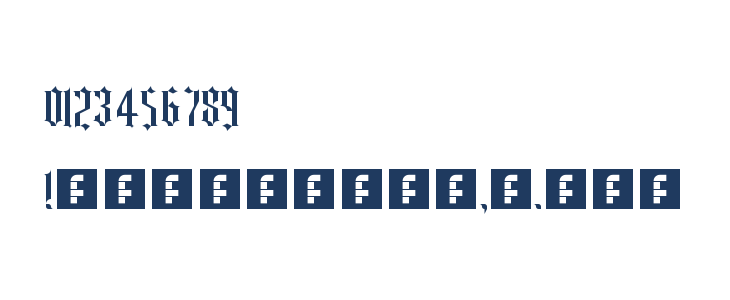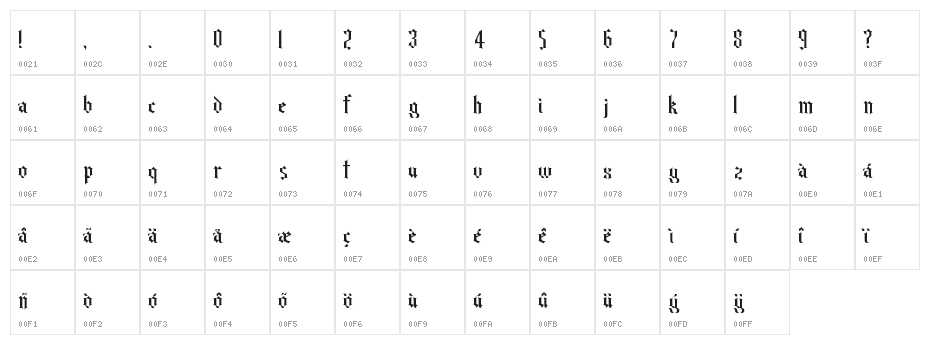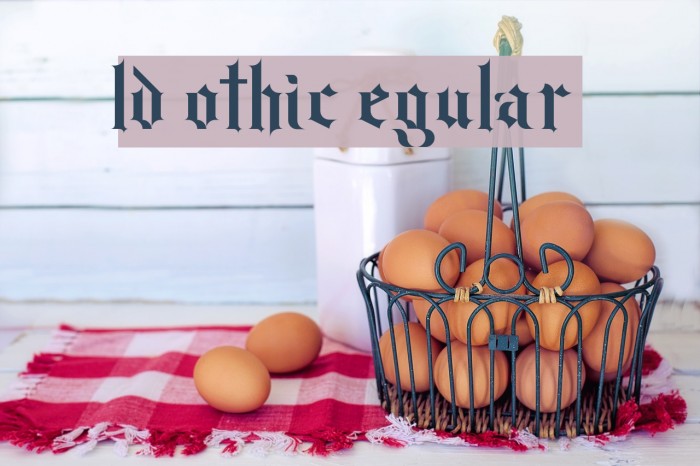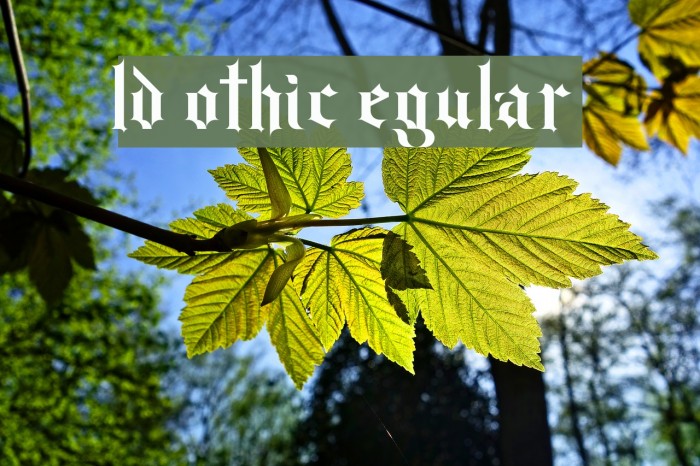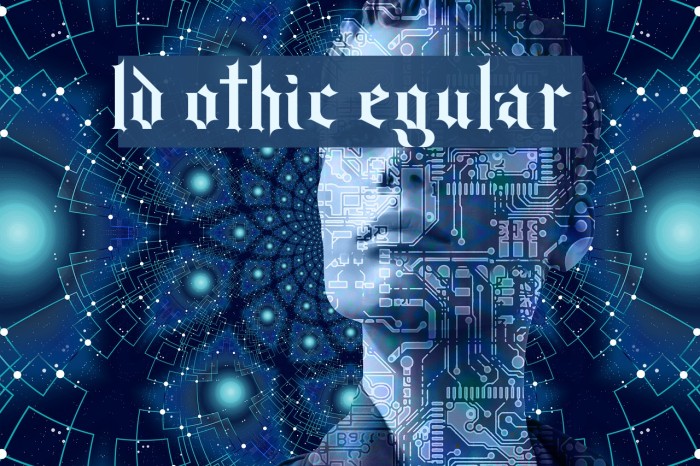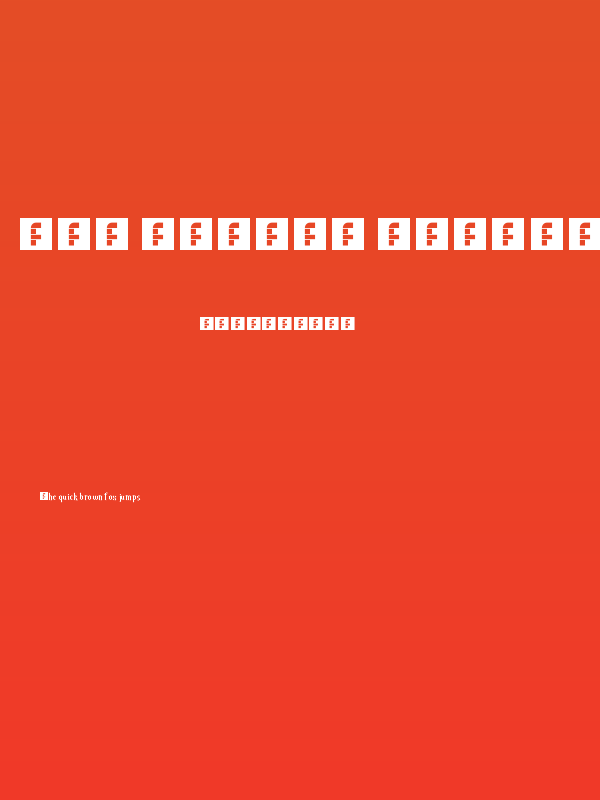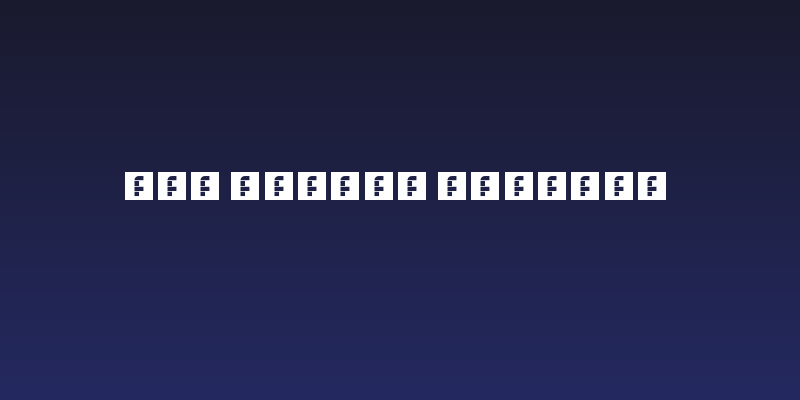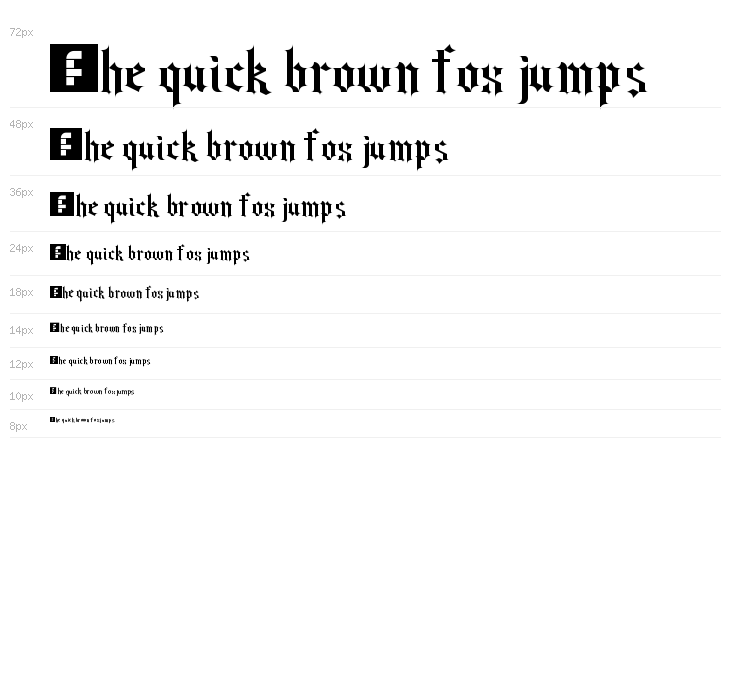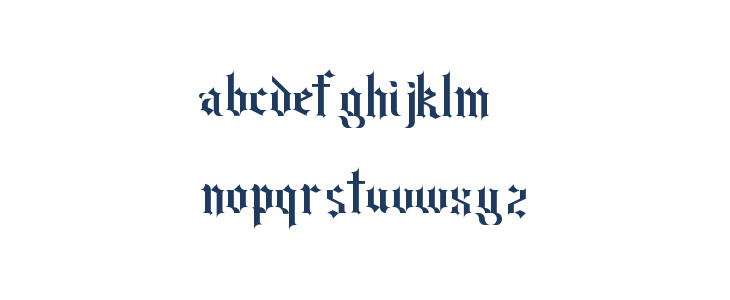
Old Gothic Regular Font
Old Gothic Regular Description
This font embodies a classic Gothic style, characterized by its intricate and ornate letterforms. The sharp, angular strokes and decorative serifs give it a medieval appearance, reminiscent of traditional blackletter scripts. Each character is meticulously crafted, featuring high contrast between thick and thin strokes, which enhances its dramatic and historical feel. The overall design is both bold and elegant, making it suitable for projects that require a touch of antiquity and sophistication.
| Proposed Projects | Ideal for historical documents, medieval-themed designs, book covers, and event invitations that require a traditional and sophisticated look. |